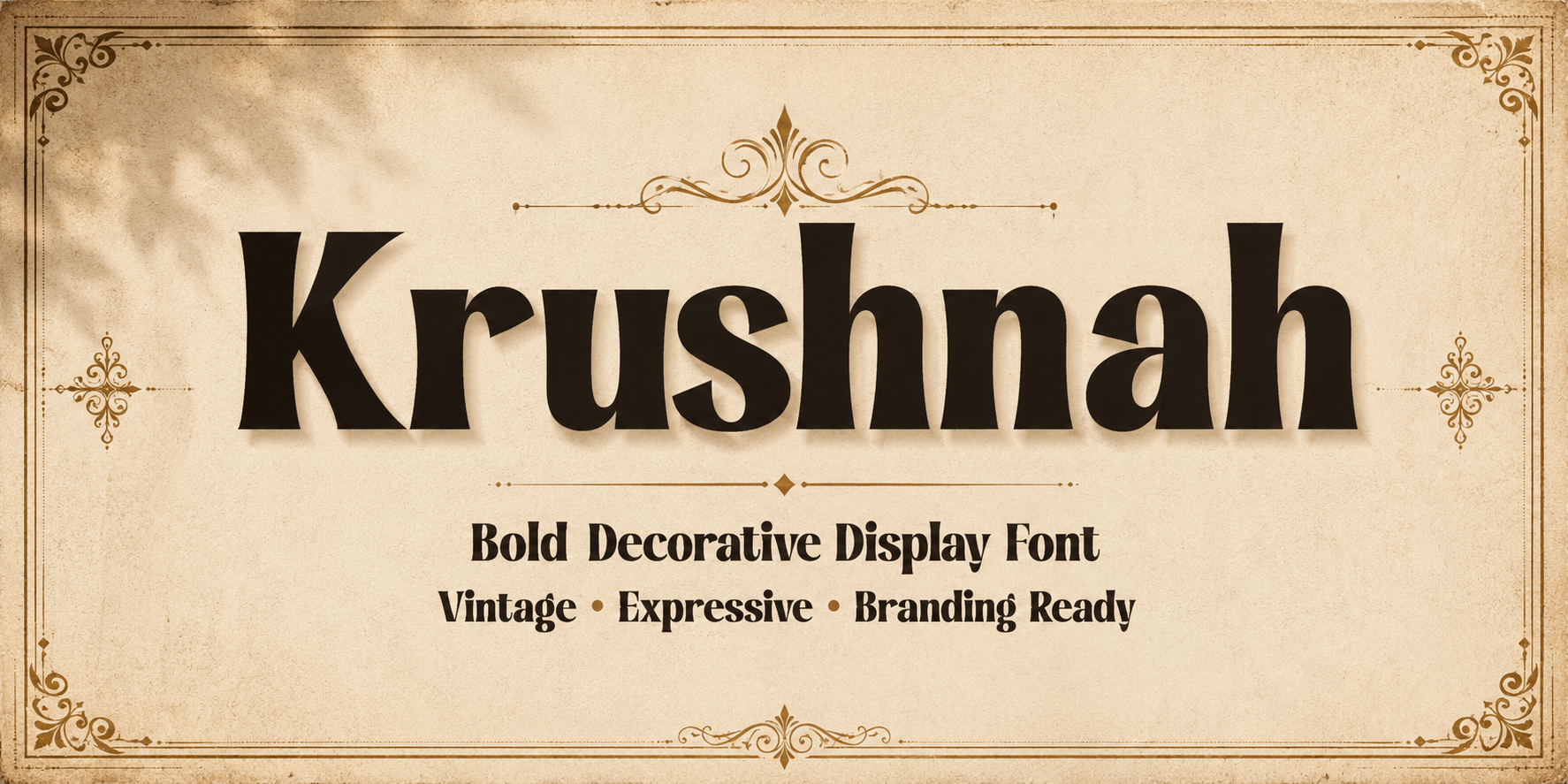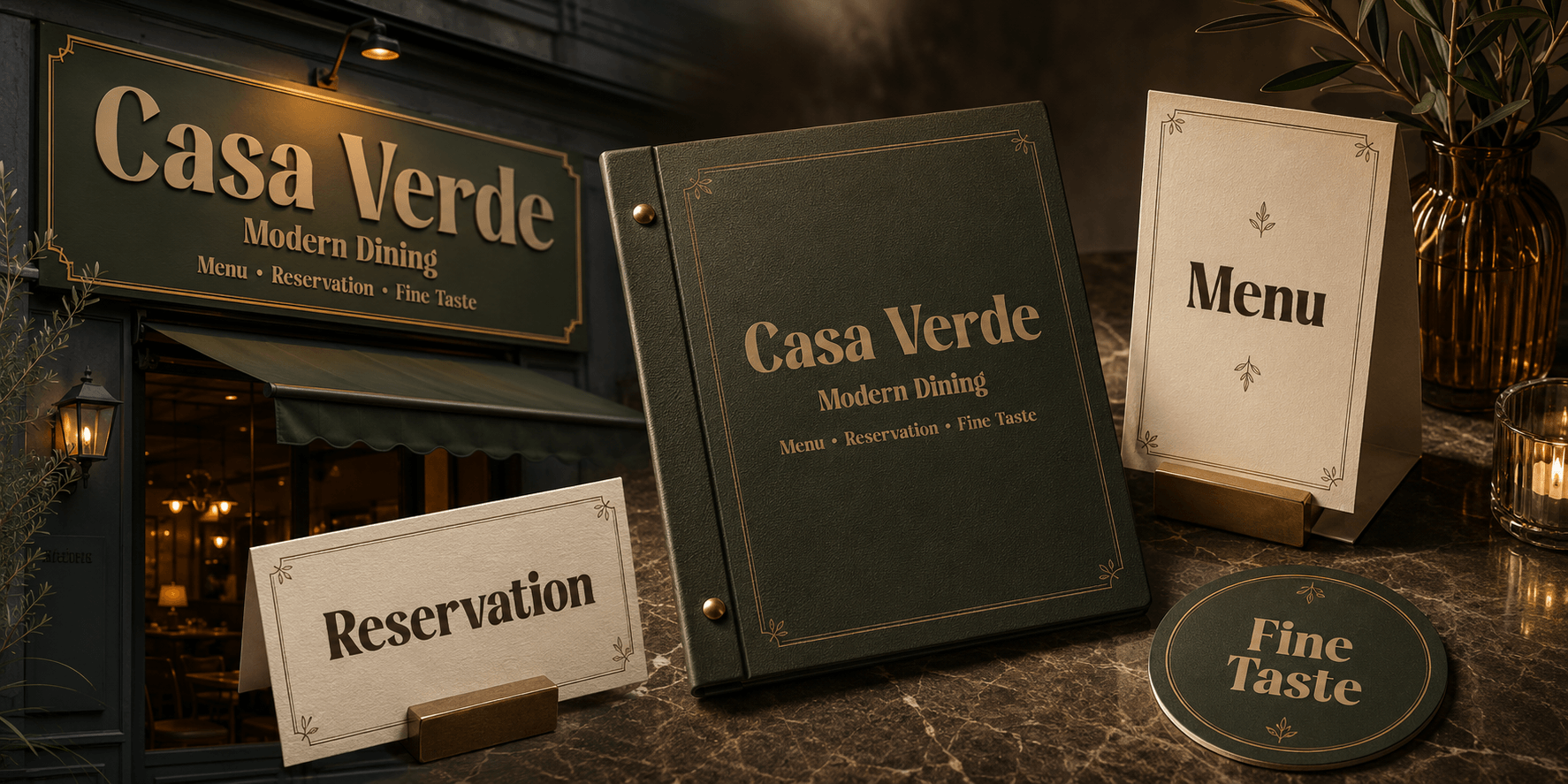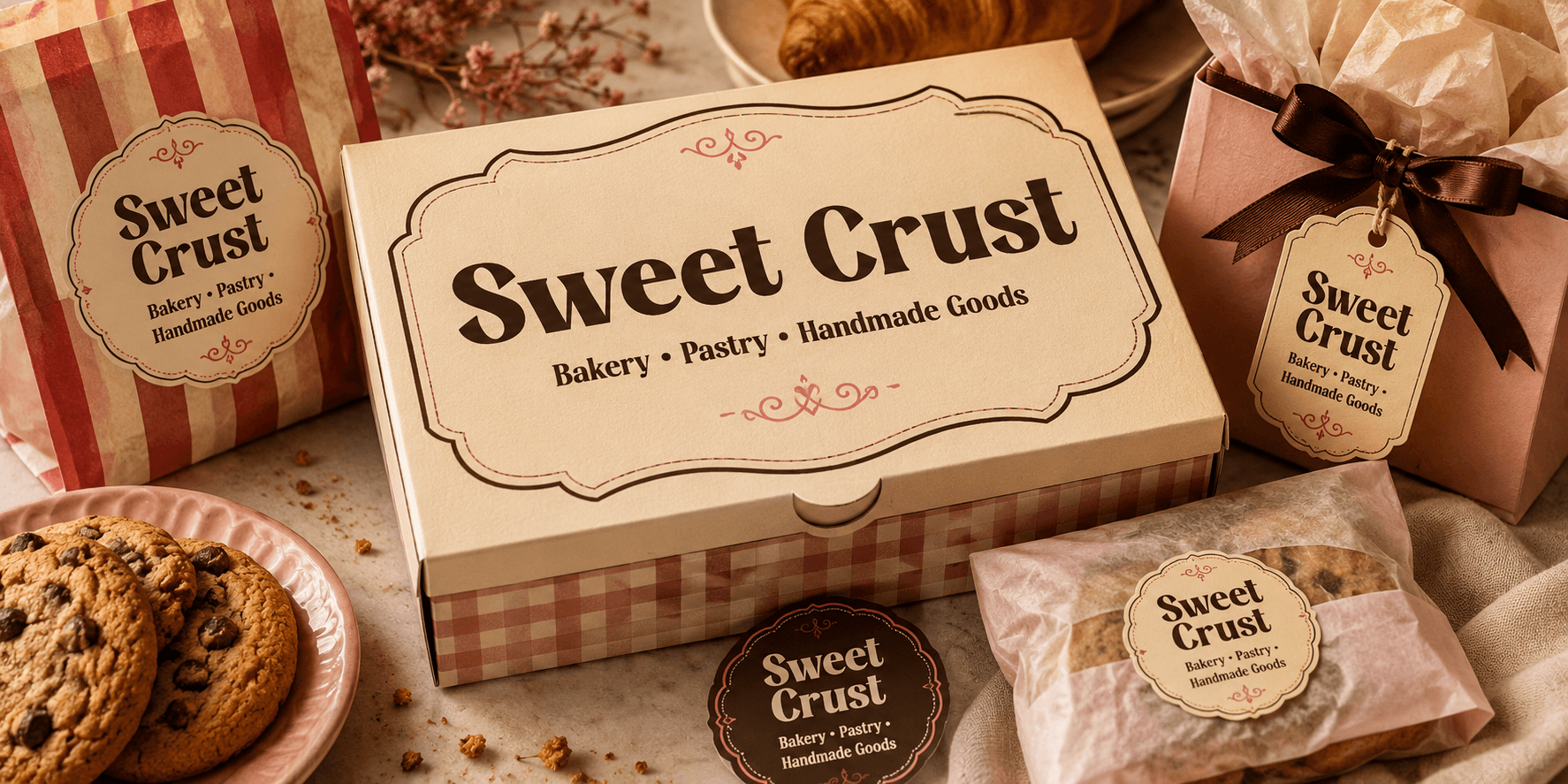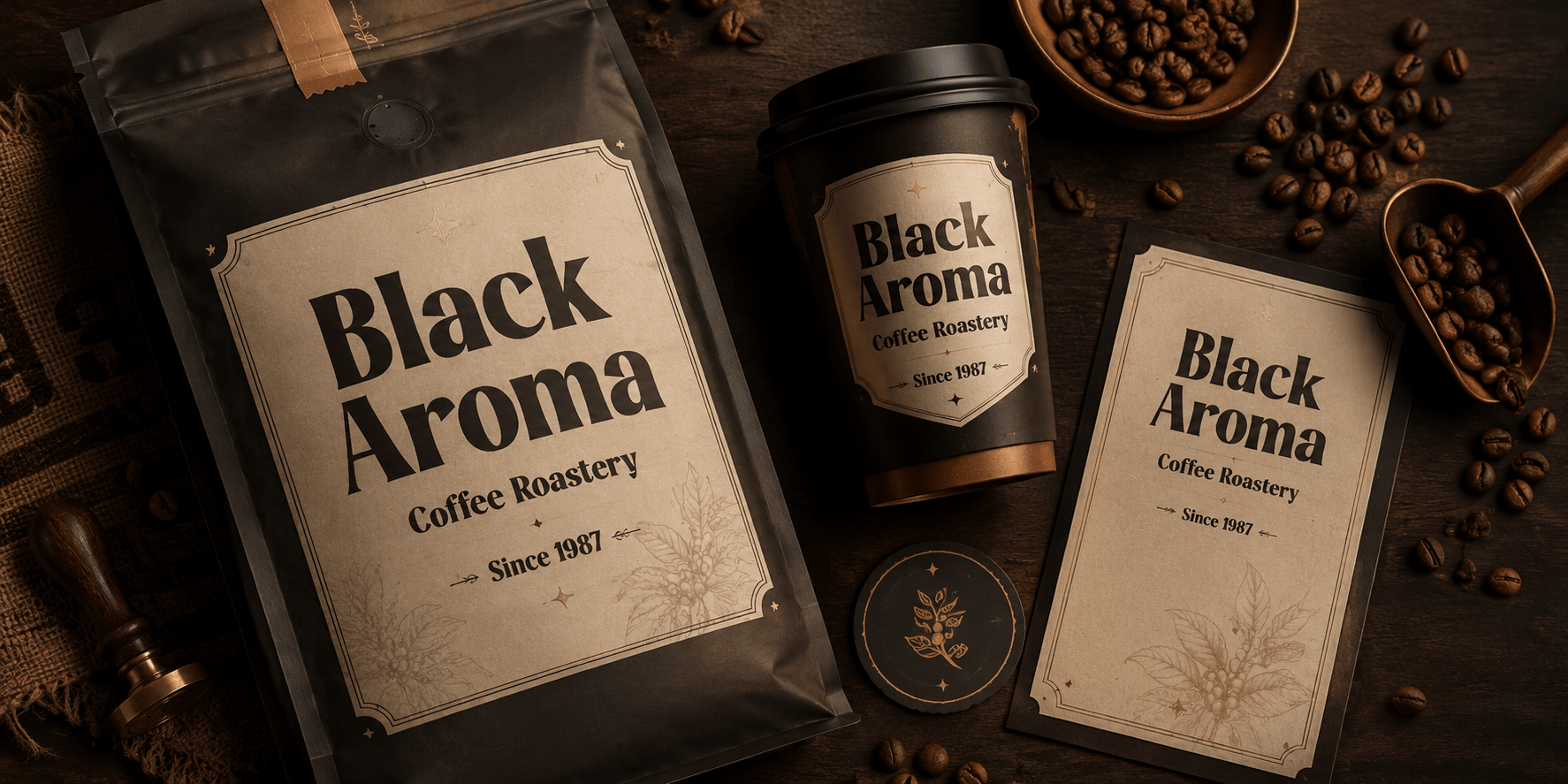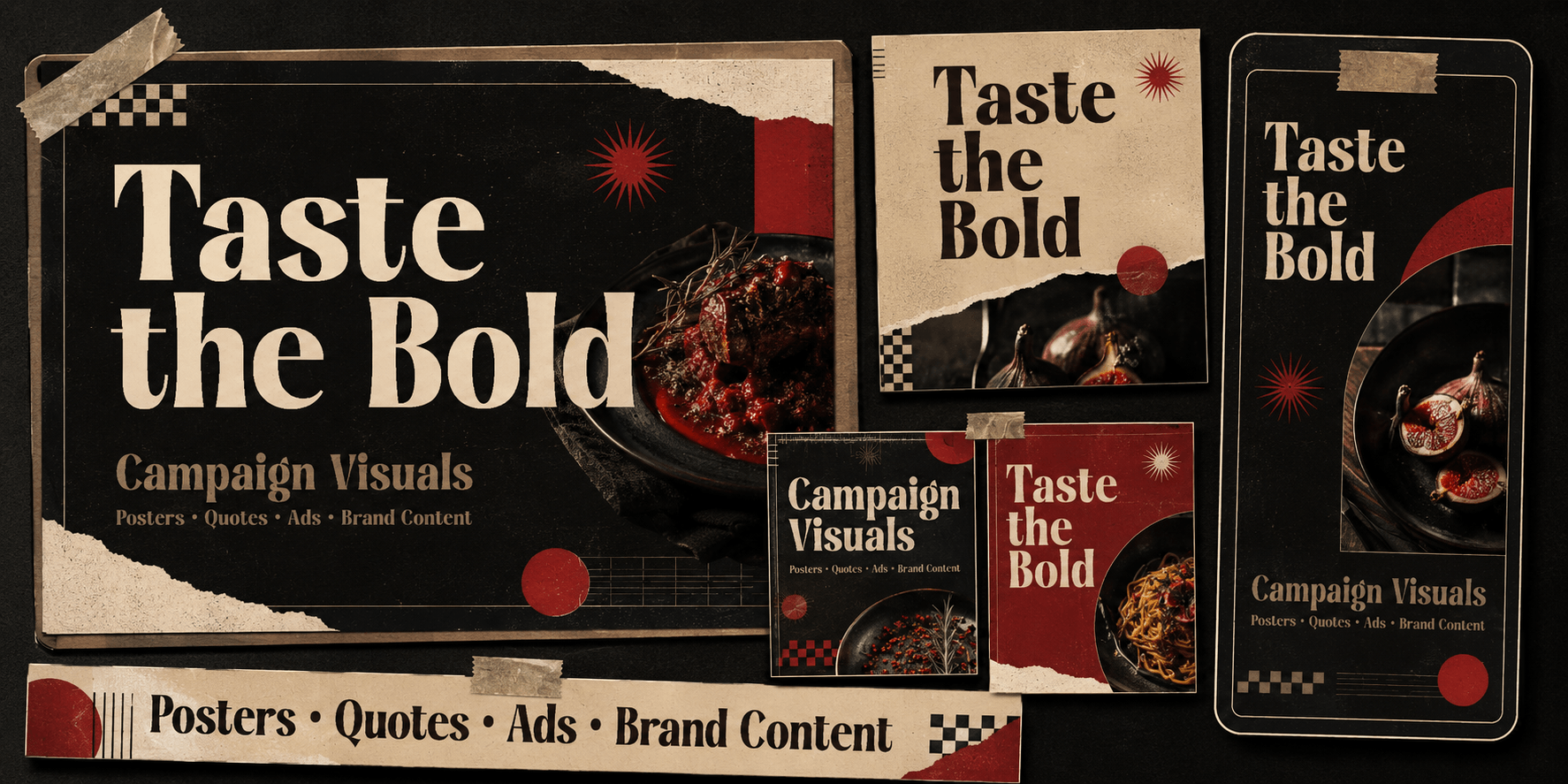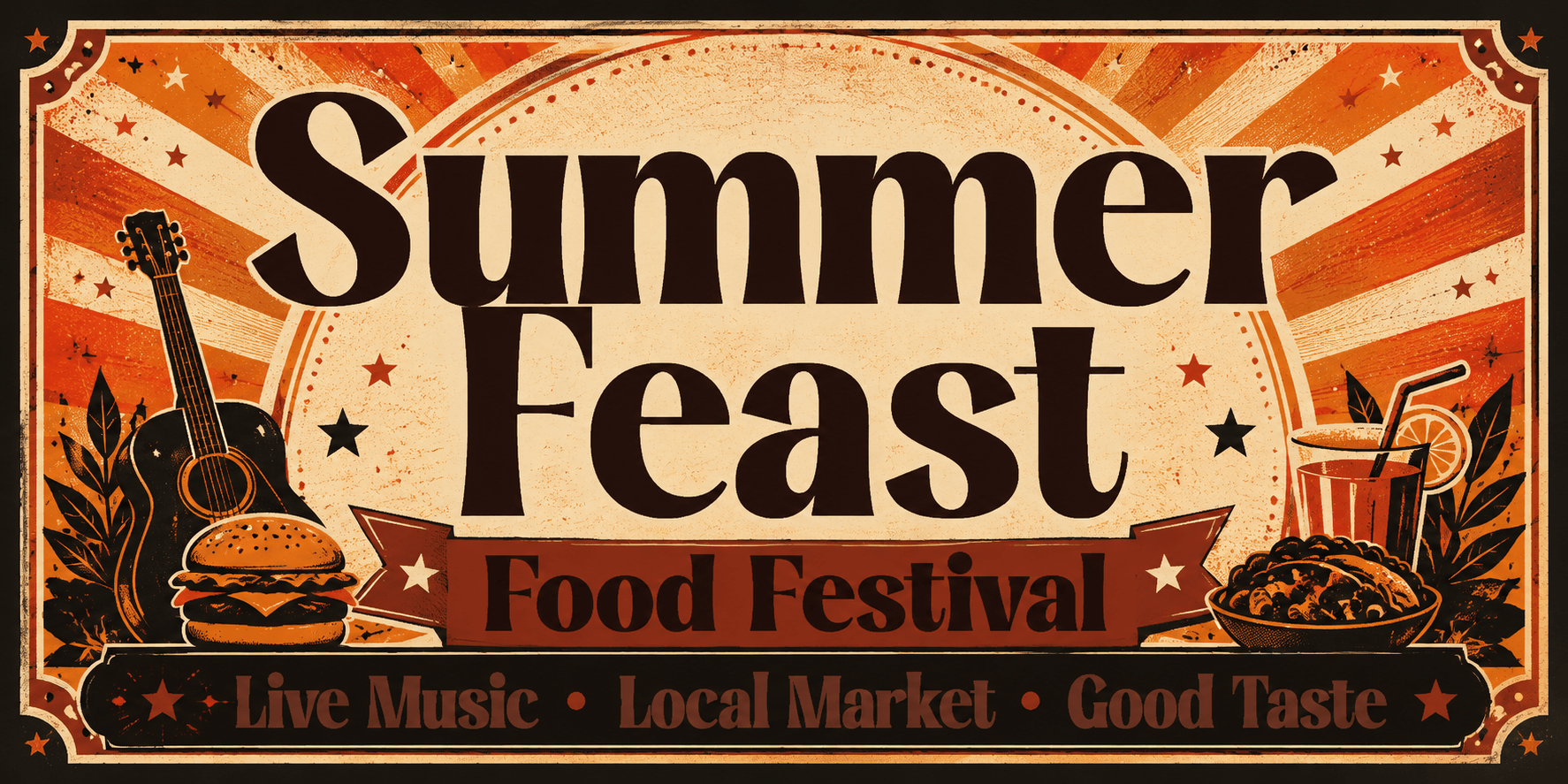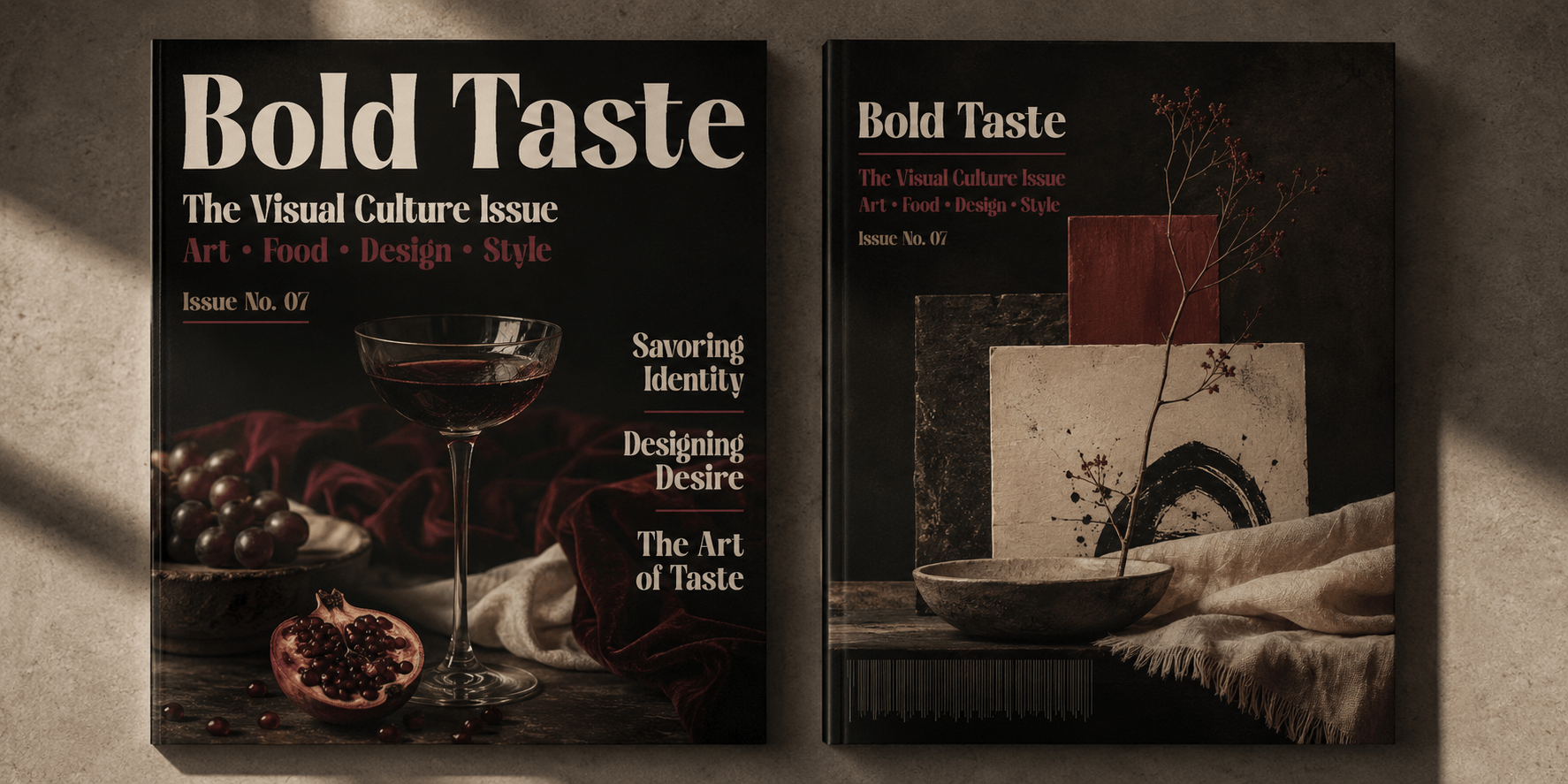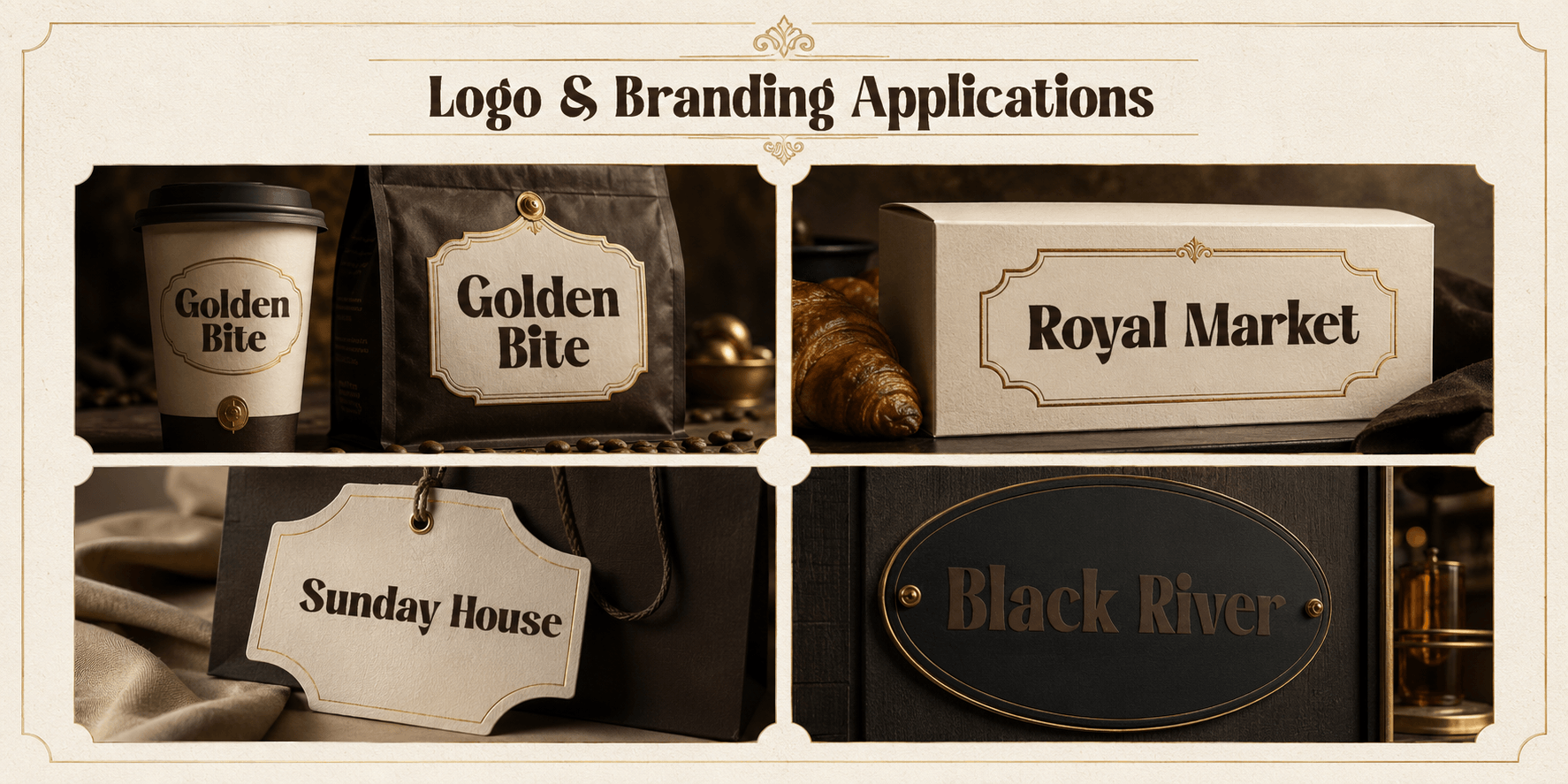
Krushnah
serif — 1 Style
About this Typeface
Krushnah — High-Contrast Condensed Display Serif Editorial attitude in a single, confident weight. Krushnah is a high-contrast condensed display serif built for headlines that refuse to be ignored. Its narrow proportions, dramatic thick-to-thin modulation, and flared, blade-like terminals give it the presence of a fashion-magazine masthead — elegant, sharp, and unmistakably contemporary. Set it large and it carries the polish of luxury branding; set it in a tight stack and it reads like a poster waiting to happen. Designed and produced by Mytype Studio, Krushnah pairs its expressive letterforms with practical typographic support: standard ligatures, automatic fractions, ordinals, superscript figures, and refined kerning across a 232-glyph character set with multilingual Latin coverage. It's a display face engineered to look intentional in logos, covers, and editorial layouts — not just decorative. Best for: fashion & beauty branding · magazine and editorial headlines · posters · packaging & labels · luxury logos · book and album covers · social media graphics · event and wedding titling.